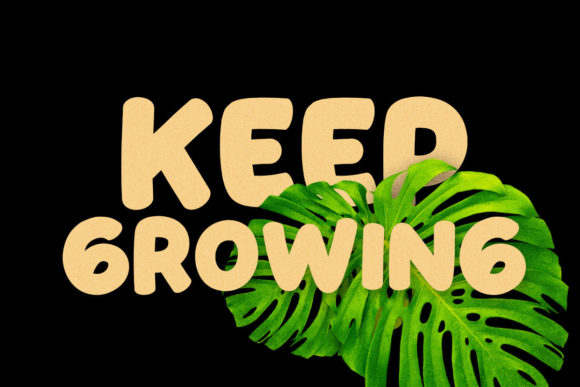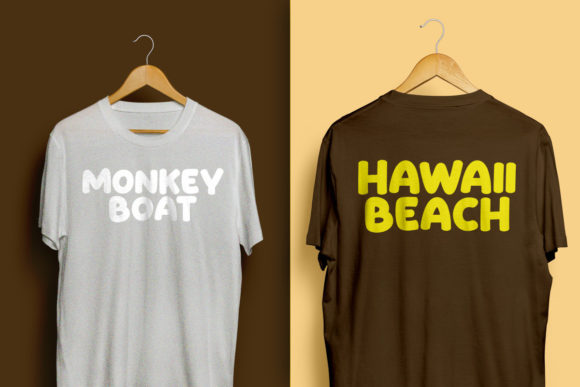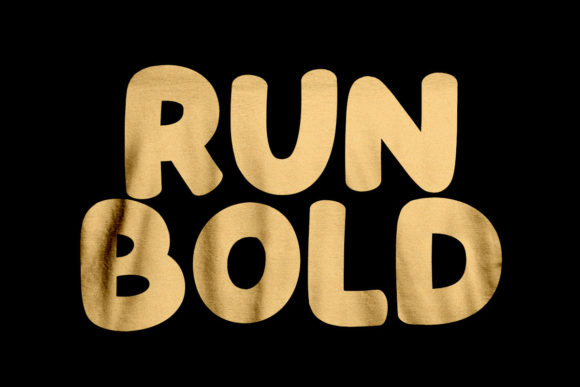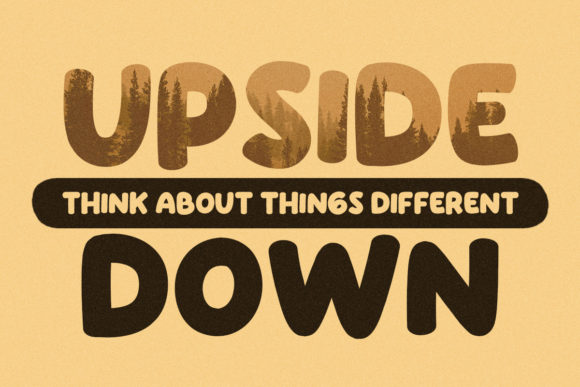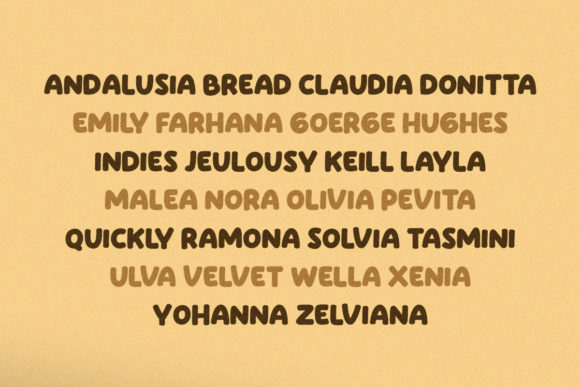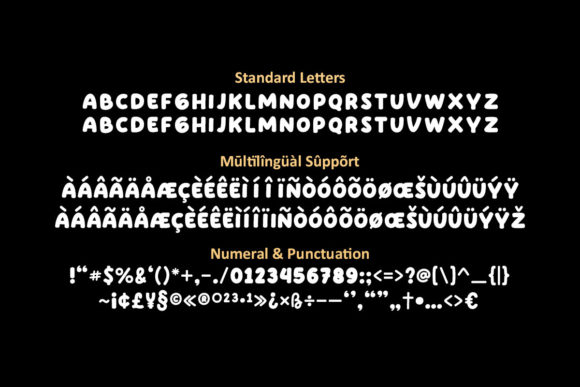
Introduction to Quickly Brown Font
Have you ever stumbled upon the perfect font that makes your creative project pop, and you can’t help but imagine the endless possibilities it holds? That’s exactly what happened when I discovered the Quickly Brown Font. Its cool, chunky lettering and paint-brushed texture are an instant attention-grabber, making it perfect for cartoon-related designs, children’s games, and quotes that need a touch of joy.
Whether you’re working on a book cover, poster, or brand name, Quickly Brown Font is sure to add a unique touch to your design. Its versatility and creative potential make it a must-have for any designer looking to add some visual interest to their work.
Key Features of Quickly Brown Font
- High-quality design resource ideal for creative projects, with a unique and stylish brown color scheme.
- Transparent background option allows for seamless integration with images and other design elements, giving you maximum flexibility.
- Designed with high resolution in mind, this font is perfect for printing and digital use, ensuring crisp and clear text at any size.
- Perfect for designers looking for a distinctive and creative font to add a professional touch to their projects.
Honest Review: Quickly Brown Font
One of the things that stands out about this font is its high quality. The clean lines and modern aesthetic make it perfect for creative projects that require a professional touch.
- Transparent background, which makes it easy to use on a variety of backgrounds.
- Highly legible, even at smaller font sizes.
- Perfect for designing logos, business cards, and other marketing materials.
- Only a limited number of weights and styles are available.
- Not suitable for very large or very small font sizes.
Overall, I’m impressed with the Quickly Brown Font. It’s a solid choice for designers who need a reliable, high-quality font for their creative projects. With a little creativity, you can get a lot out of this design resource.
Tips for Getting the Most Out of Quickly Brown Font
Use Quickly Brown Font with a transparent background to add depth and interest to your design. Experiment with different font sizes and styles to create a unique look. This high-quality font is a valuable design resource for any creative project.
Quickly Brown Font is ideal for use in logos, branding materials, and creative projects that require a professional look. It’s also a great choice for presentations and documents that need a touch of sophistication.